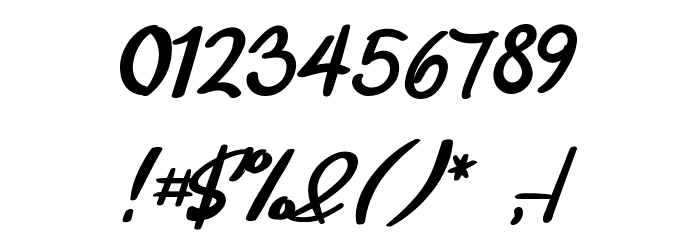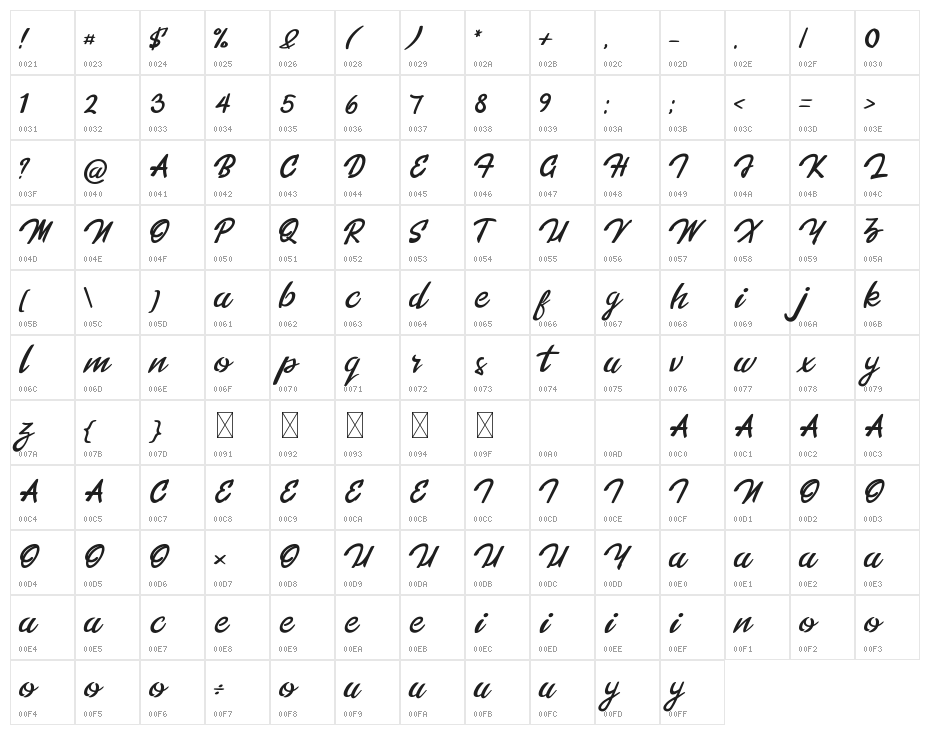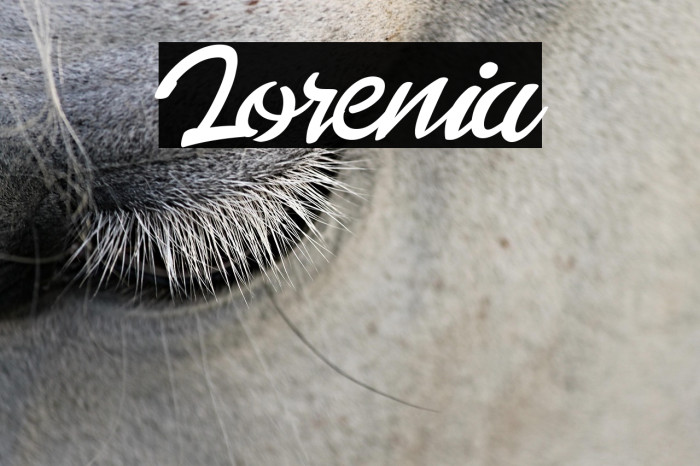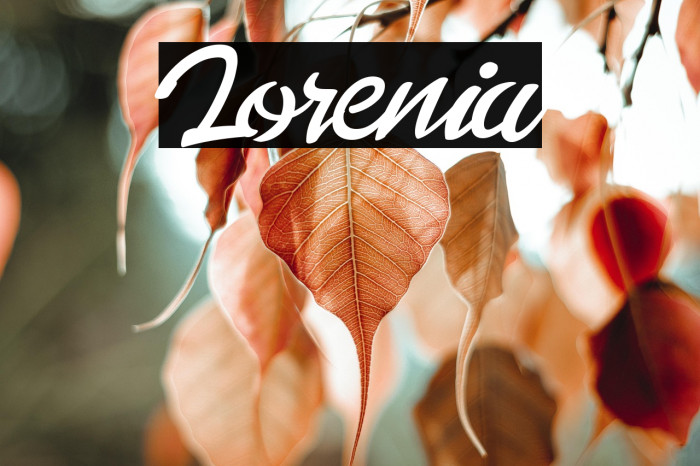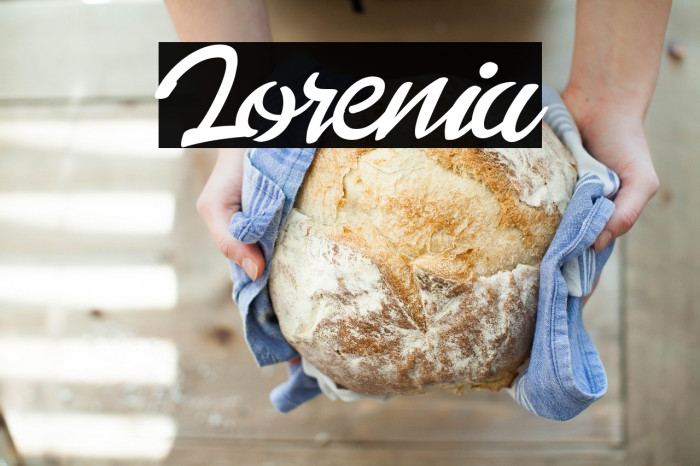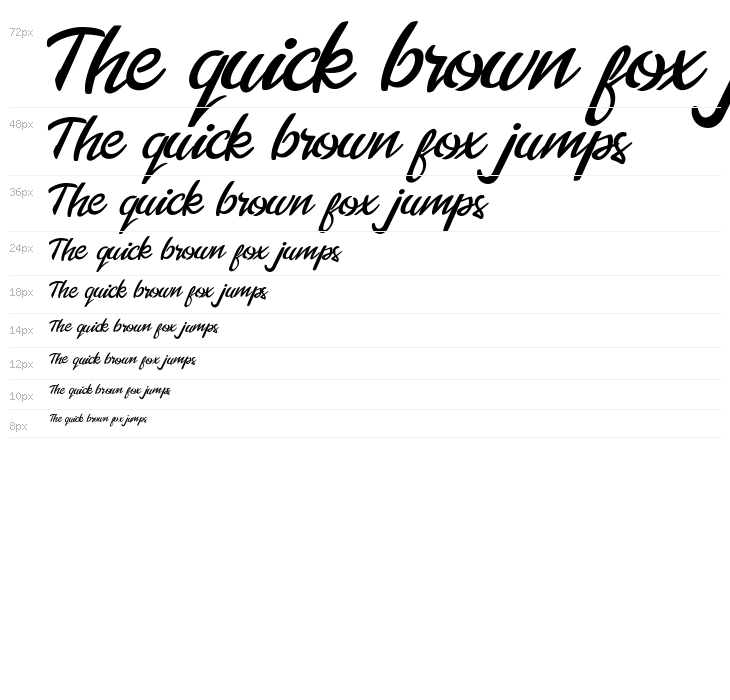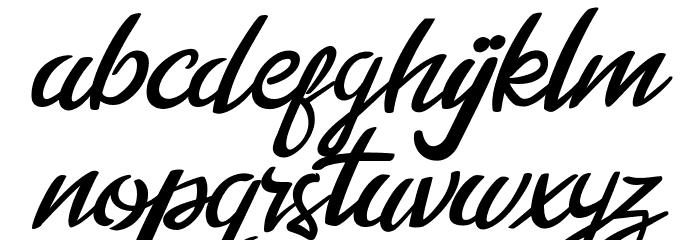
Lorenia Font
Lorenia Description
This font exudes a dynamic and energetic vibe with its bold, flowing script style. The characters are connected, giving it a handwritten appearance that is both elegant and casual. The uppercase letters are slightly more elaborate, with sweeping lines and curves that add a touch of sophistication. The lowercase letters maintain a consistent flow, enhancing readability while retaining a stylish flair. Numbers and special characters are crafted with the same attention to detail, ensuring a cohesive look across all elements. The overall design is perfect for projects that require a personal touch, such as invitations, branding, or artistic endeavors.